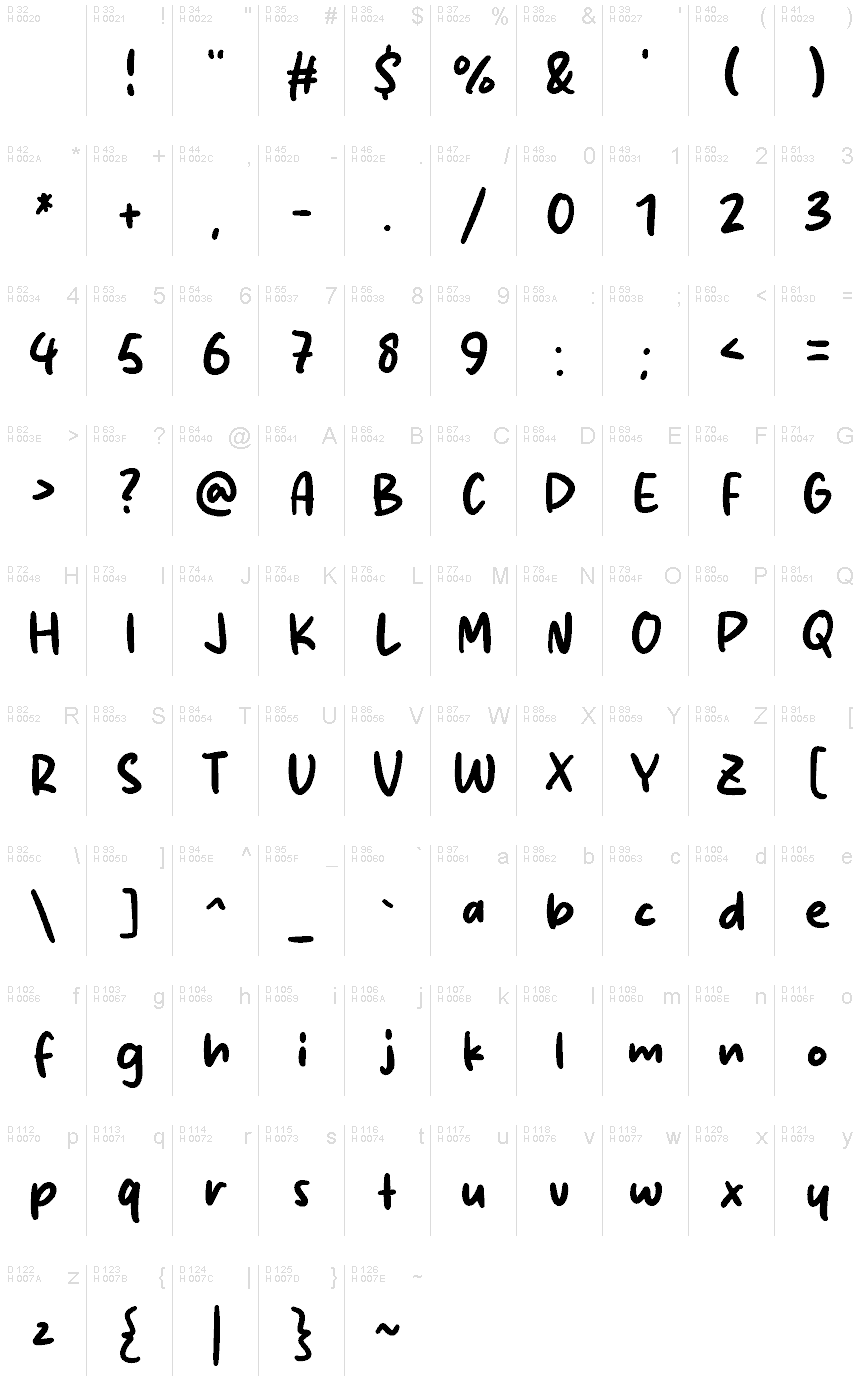
Milkshot
Milkshot font by MJType is a casual and modern handwritten font with an energetic feel. The handcrafted characters smoothly flow while creating authentic typography designs, and the smooth yet natural edges remain clean in any size. It is free, making it even easier to add to your branding and personal projects with no limitations.
The use cases are endless as this typed style suits packaging, social media posts, greeting cards, invitations, magazine layouts, animated videos/clip arts, games interfaces and design presentations. Web designers can create spectacular homepages or logos that leave their mark.